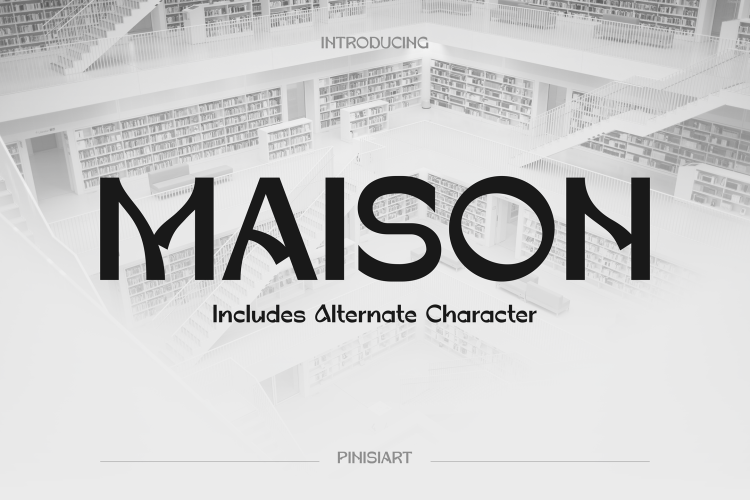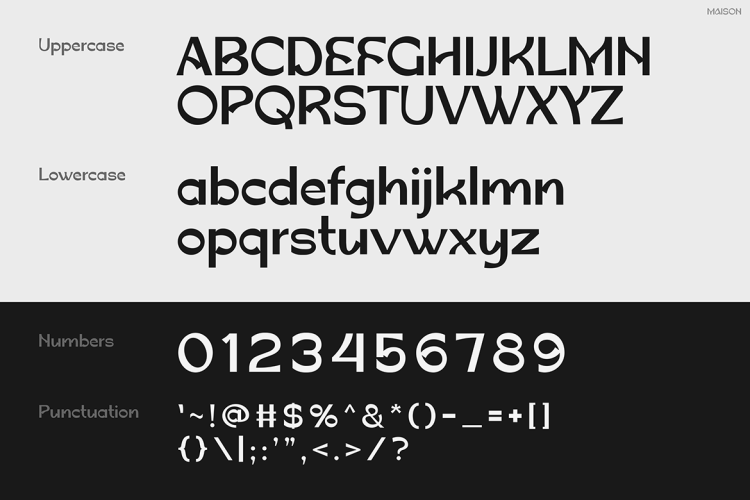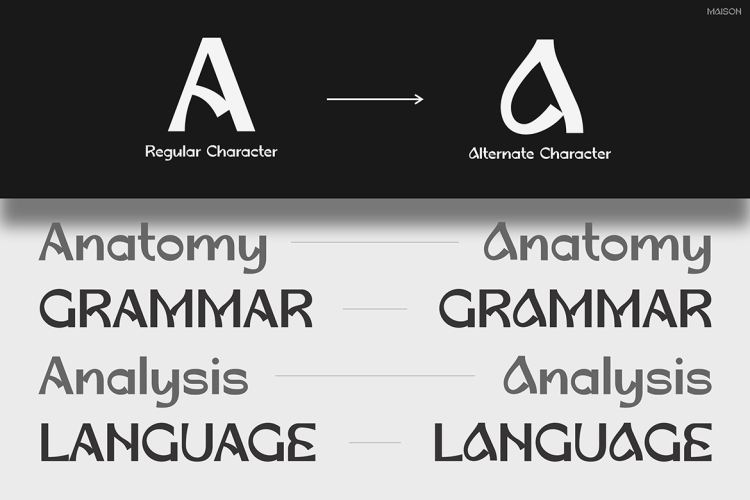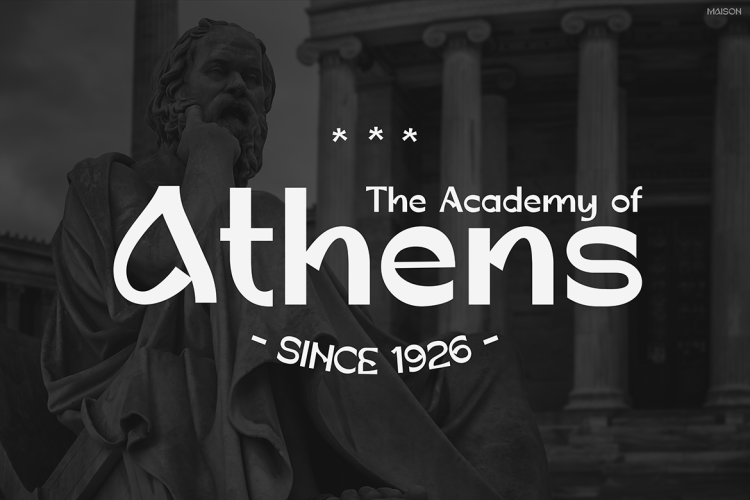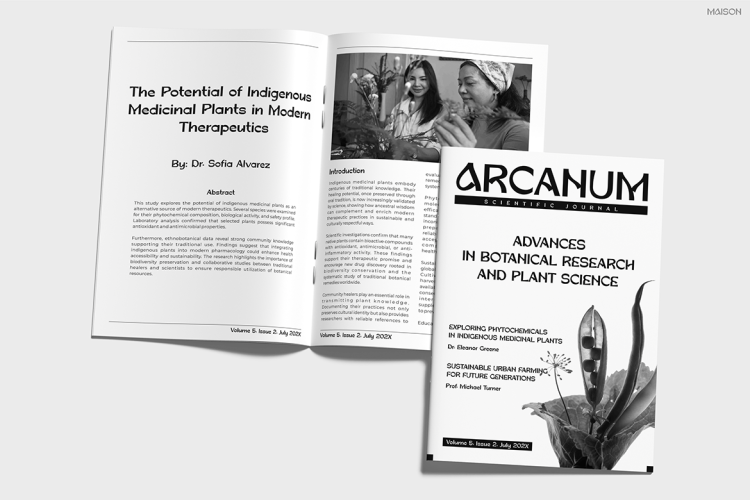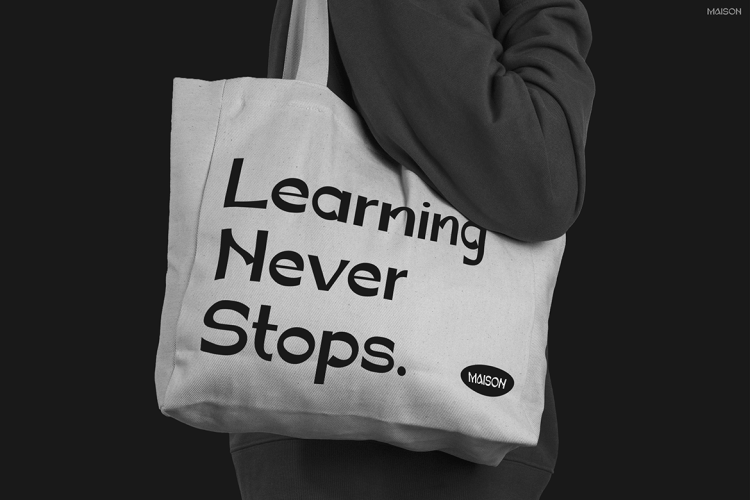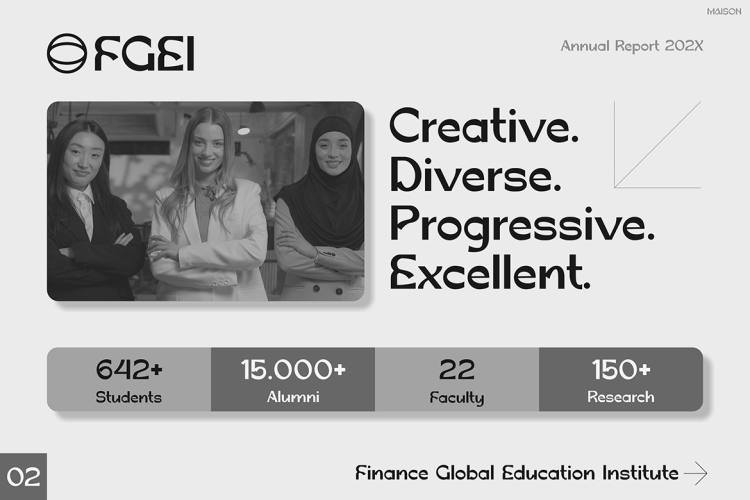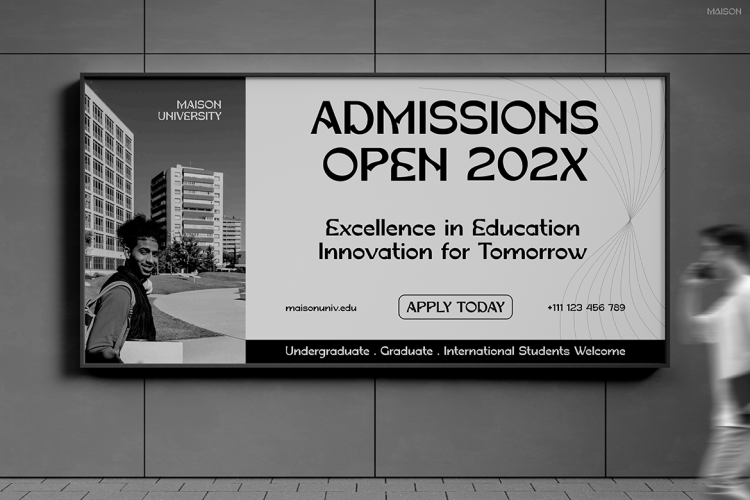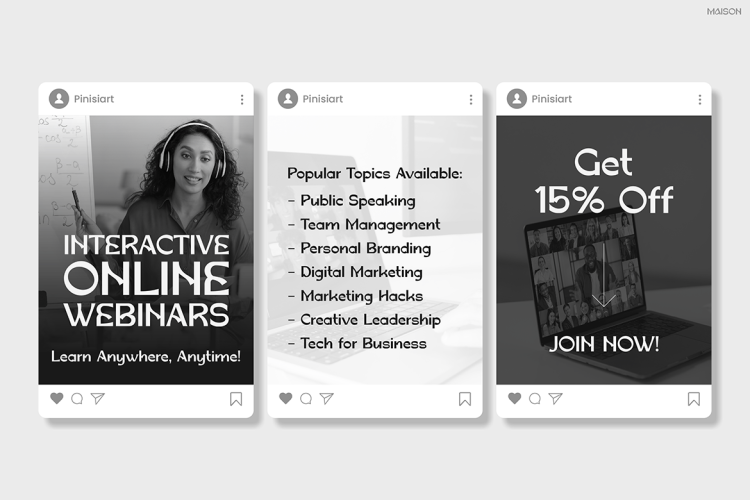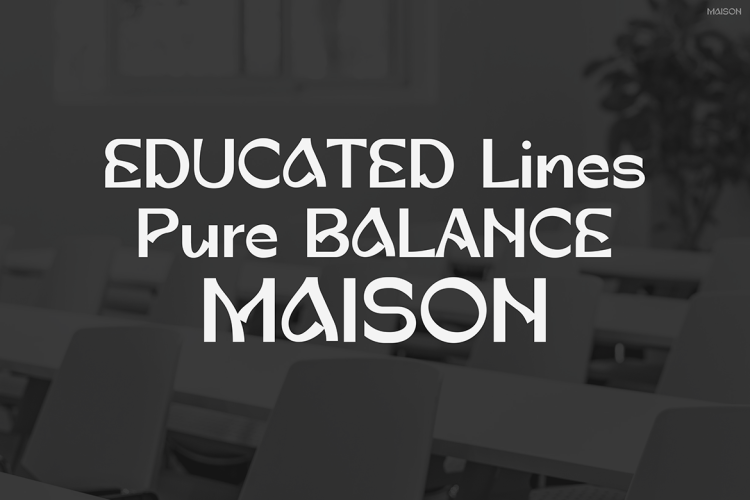
Instagram Font Maison is more than a typeface. It is a design tool that elevates words with balance and fresh style. Its sleek lines and modern curves give every project a professional yet creative edge. Moreover, the font mixes clarity with personality, which makes it both readable and eye-catching. The alternate characters and ligatures add flexibility, so you can adapt the look for many situations. As a result, Maison works equally well for bold titles or subtle, elegant designs. Therefore, it becomes a reliable choice for branding, Instagram visuals, editorial layouts, and digital promotions.
Maison carries a geometric foundation with refined details. The uppercase letters are bold and commanding, while the lowercase set feels approachable and friendly. This balance keeps designs strong but never stiff. In addition, numbers and punctuation are included, making it dependable for various projects. For example, you can use it for stylish tote bag quotes, polished ads, or clean editorial spreads. Its versatility is, therefore, one of its strongest features. On Instagram, Maison helps posts and stories shine, since every character looks sharp on screens. Furthermore, the smooth curves and balanced structure give your content a professional finish.
Instagram Font Maison Perfect For :
Content Creators & Influencers: Create Instagram posts, reels, and highlights that are modern, stylish, and easy to read.
Small Businesses & Startups: Use it in promos, ads, and campaigns; consequently, your brand will look both trendy and trustworthy.
Educators & Institutions: A smart fit for course posters, banners, and admission campaigns. Moreover, it feels professional but still welcoming.
Designers & Marketers: Add it to your toolkit for branding, magazines, packaging, or digital presentations. In other words, itโs an all-in-one solution.
Instagram Font Maison is more than stylishโit is practical. It blends beauty with function, and therefore gives every project a modern voice. Moreover, it ensures that your designs look sharp and memorable. If you want a typeface that works across social media, branding, and marketing, then this is the one to choose. In conclusion, bring elegance and strength to your creative workโmake Maison part of your design journey today.